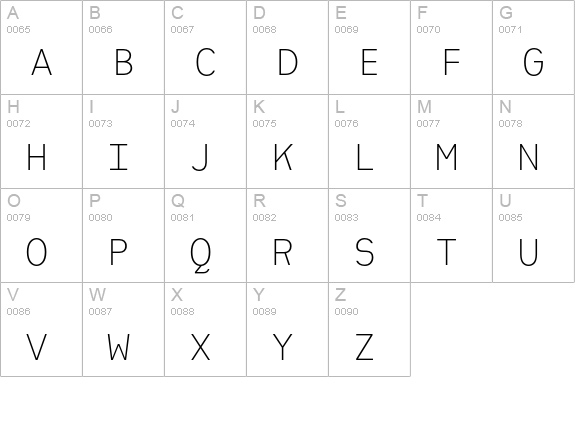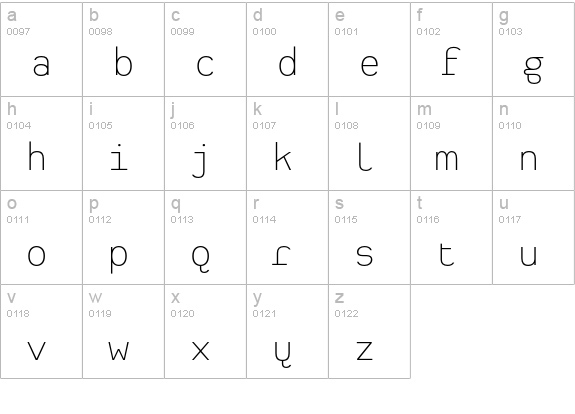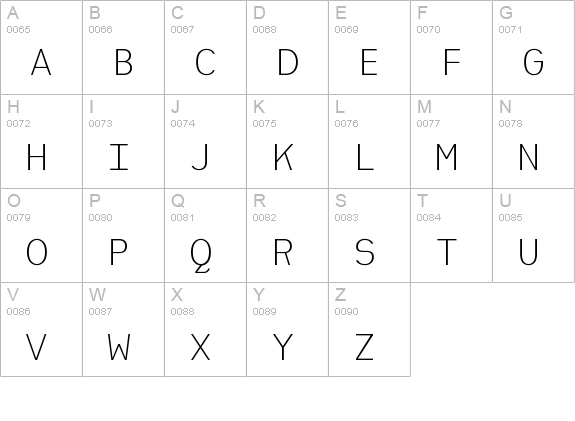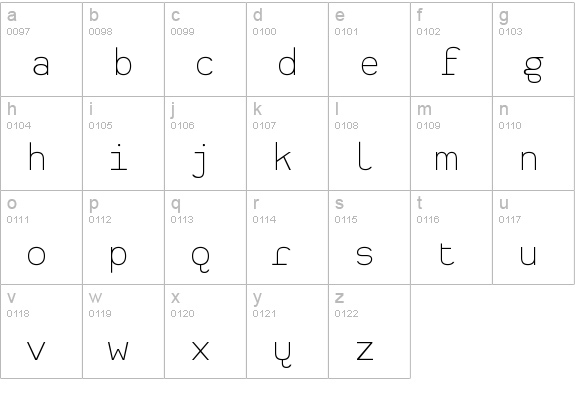
Heimat Mono ExtraLight is an airy, ultra-refined variant in the Heimat typeface family \xE2\x80\x94 well suited to minimalist headlines and refined display use.
Heimat Mono ExtraLight is a sleek and modern typeface that exudes elegance and sophistication. With its delicate and precise letterforms, this font is perfect for creating a clean and minimalist look in your designs. The ExtraLight weight adds a touch of subtlety and refinement, making it ideal for projects that require a subtle and understated aesthetic. What sets Heimat Mono ExtraLight apart is its versatility and readability, making it suitable for a wide range of design applications, from branding and advertising to editorial and web design. Its clean lines and sharp edges give it a contemporary feel, while its subtle curves add a touch of warmth and personality. And the best part? Heimat Mono ExtraLight is completely free to download at FontsMarket.com. So go ahead and add this beautiful typeface to your font collection today and elevate your designs with its timeless elegance and sophistication.